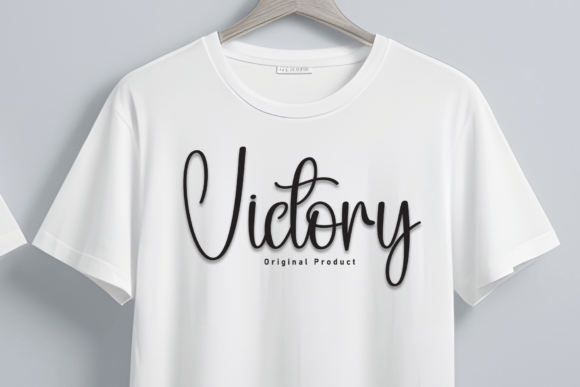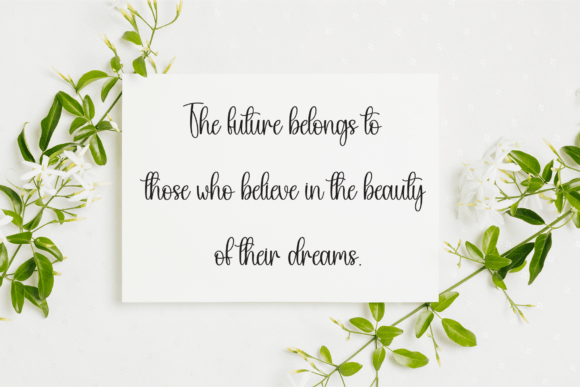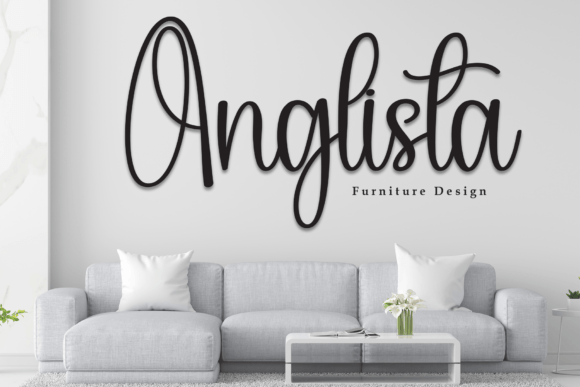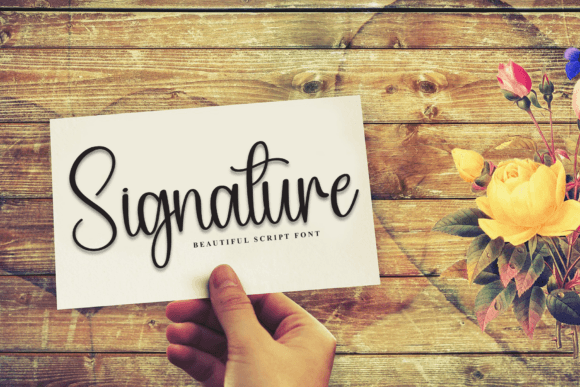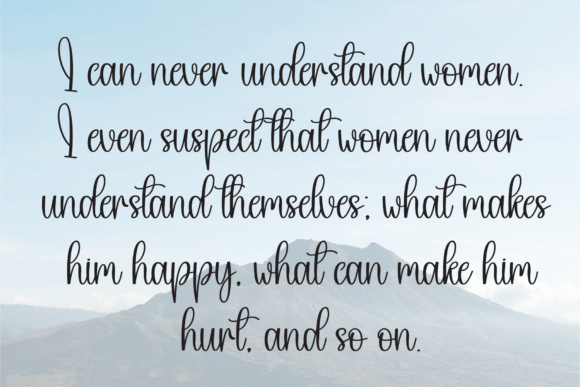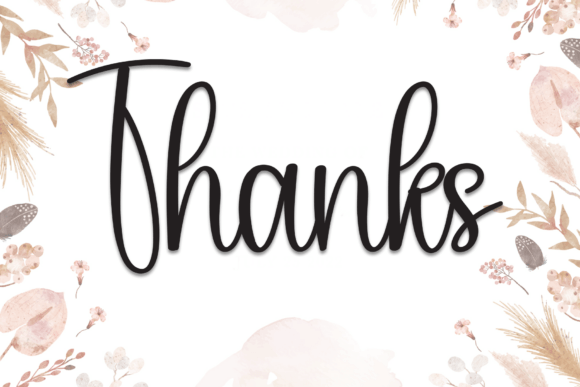
Baby Boho Font: Elevate Your Designs with Elegant Script
In the world of typography, a font can make or break the aesthetic of a design project. For those seeking a touch of elegance and sophistication, the Baby Boho Font is an excellent choice. This beautiful script font combines classic calligraphy with a modern twist, making it perfect for designers and crafters looking to add a unique flair to their work.
The Inspiration Behind Baby Boho
Baby Boho is an elegant script font with a contemporary atmosphere and impeccable form, inspired by timeless classic calligraphy. The creator of this font aimed to strike a balance between traditional and modern elements, resulting in a unique and versatile typeface. Not too thin and not too thick, Baby Boho’s balanced and varied strokes bring a sense of harmony to any design.
Key Features of Baby Boho Font
- Elegant Script Style: Baby Boho boasts a beautiful, flowing script style reminiscent of classic calligraphy.
- Contemporary Atmosphere: Despite its classic inspiration, Baby Boho has a distinctly modern feel, making it suitable for a wide range of design projects.
- Balanced and Varied: The font’s balanced strokes and varied letterforms ensure that it remains visually interesting and engaging.
- Impeccable Form: Each letter in Baby Boho has been carefully crafted to ensure that the font maintains a high level of legibility and aesthetic appeal.
Uses for Baby Boho Font
The versatility of Baby Boho makes it suitable for a variety of design projects, including:
- Wedding and Event Stationery: Add a touch of elegance to wedding invitations, save-the-date cards, and other event materials.
- Branding and Packaging: Use Baby Boho to create sophisticated logos, labels, and packaging that stand out.
- Digital and Print Media: Enhance your blog posts, social media graphics, and print materials with the beautiful, flowing script of Baby Boho.
- Crafting and DIY Projects: Perfect for crafters, Baby Boho can be used for handlettering, journaling, and other DIY projects.
Why Choose Baby Boho?
In a sea of fonts, Baby Boho stands out for its unique blend of classic elegance and modern charm. Here are a few reasons why designers and crafters are drawn to this beautiful script font:
- Unique Aesthetic: Baby Boho offers a distinctive look that can help your designs stand out.
- Versatility: Suitable for a wide range of projects, from digital media to print materials and crafting.
- Easy to Read: Despite its elegant and flowing nature, Baby Boho remains highly legible.
Tips for Using Baby Boho Effectively
To get the most out of Baby Boho, consider the following tips:
- Pair with Complementary Fonts: Combine Baby Boho with sans-serif fonts for contrast and visual interest.
- Use for Headers and Titles: Take advantage of Baby Boho’s elegance by using it for headers and titles.
- Experiment with Colors: While Baby Boho looks stunning in black, don’t be afraid to experiment with different colors to match your brand or project’s aesthetic.
Baby Boho Font is a stunning addition to any designer’s or crafter’s toolkit. Its elegant script style, contemporary atmosphere, and impeccable form make it the perfect choice for those looking to add a touch of sophistication to their projects. Whether you’re working on wedding stationery, branding, or a DIY craft, Baby Boho is sure to elevate your designs to the next level.